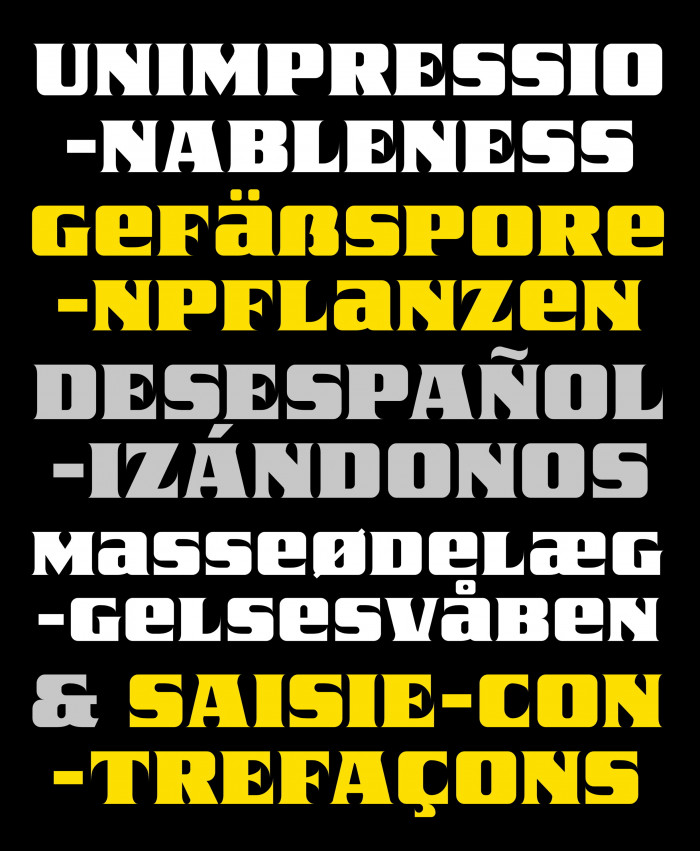
Unicase font. You can find alternates to "A" & "E" at the lowercase "a" & "e" (and their accents, of course), an additional design for the "Q" at the "q" and a "c" typing the "¢" sign. This font is directly inspired on Nickel created by the cool typographer David Jonathan Ross from DJR Foundry. Why? I don't know if this will happen to any of you, but me, when I stop to look at a font that I like, I find myself evaluating how the author has solved the usual "design problems". There are times when I agree with the chosen solutions (the most), but there are others when I think I would do it differently. This is the case. I wanted to modify a bit the general appearance of some glyphs of the font, especially characters like C, E, F, G, M, Q, R, S, X, Z and more, or the numbers and some secondary others. The differences were extensives and are more or less subtle in each of the complete set... And here you are the final result, I hope you like it. I've learned a lot during this experience, and FontStruct has been shown to be a very valid tool to work at this level. Thanks for read my little explanation and enjoy with this work, please.
I like it a lot. There are so many things to like in this font, it would take a whole page to enumerate them all. I understand your sentiment towards the original design. Yes, it's a derivative work as you kindly indicated, and you gave credit to Nickel and its designer. Almost all designs are based on previous works to some degree - as we have discussed this topic extensively before - and letterforms evolve in a similar fashion as plants do. Sometimes the changes are small, nearly imperceptible, new details appear gradually displacing old ones, other times change comes suddenly in new radical forms. (Where do you get these words: Gefäßsporenpflanzen?) "zinckel eYe/FS" is a truly amazing work with fine practical features and laborious attention to detail. Nice demos, wow! 10/10
@Frodo7: You make me blush with your kindly comments, dear Maestro. Very glad you like "zinckel", thanks a million! About the curious words (like Gefäßsporenpflanzen, hahaha), I was looking for long words with significative characters on each languages on Google and they are some of the ones I've found. Nothing special. Thanks for asking.